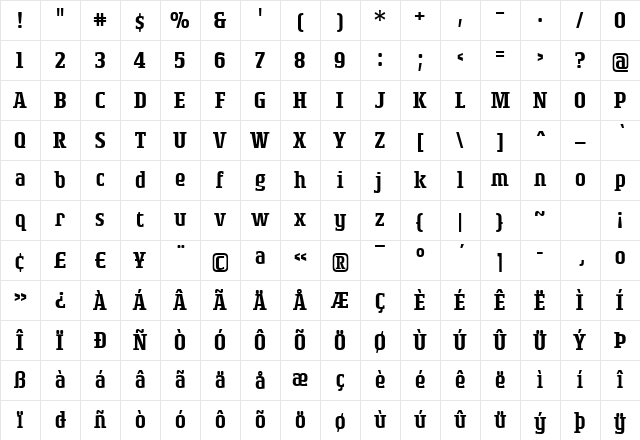
Complete Rogue Serif Medium Regular glyph index. Displaying only characters natively supported by Rogue Serif Medium Regular font.
Rogue Serif Medium carries the refined structure of traditional serif typography, with bracketed terminals and considered proportions that communicate credibility and craft.